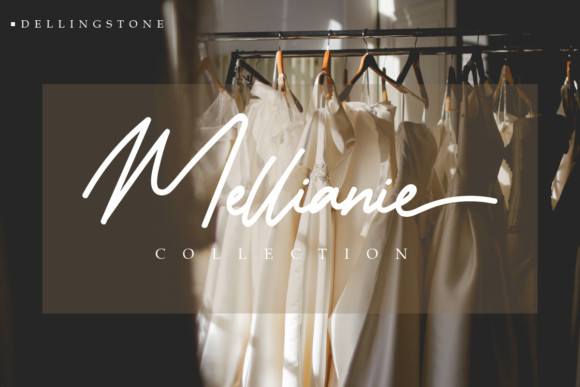
Dellingstone Signature Font
Dellingstone Signature – Demo Font
This is a casual handwritten font, a casual handwritten font perfect for a variety of projects including stationery or anything requiring a casual feel! Introducing Dellingstone Font. It’s a stylish script, perfect for turning any design project into a true standout. Get inspired by its unique and authentic vibe. Perfect for packaging, wedding invites and cards, and branding. She will show you with a full set of lower & uppercase letters, a large range of punctuation, numerals, and multilingual support.